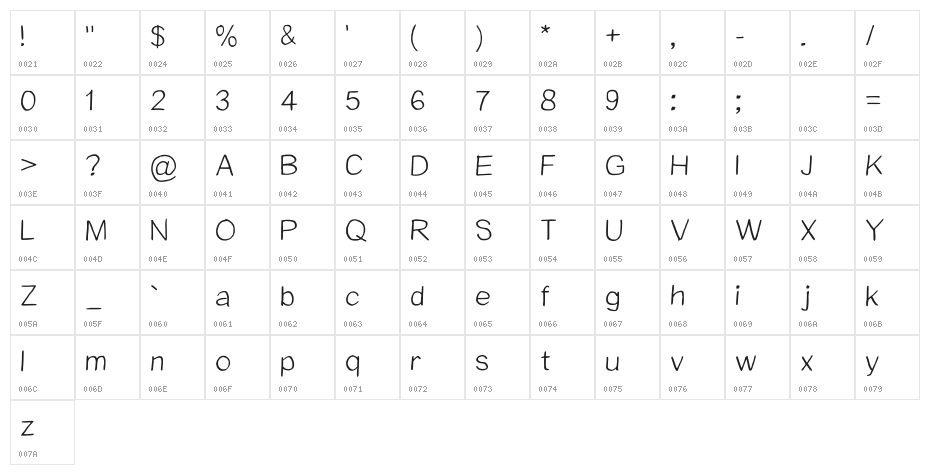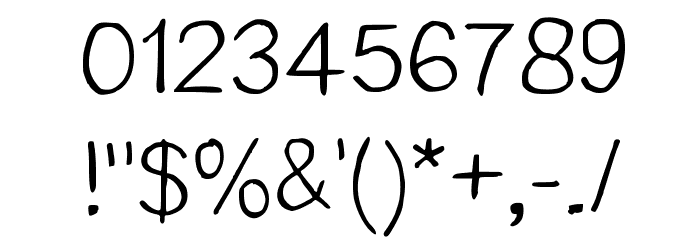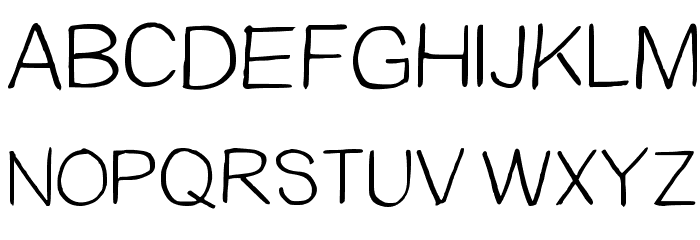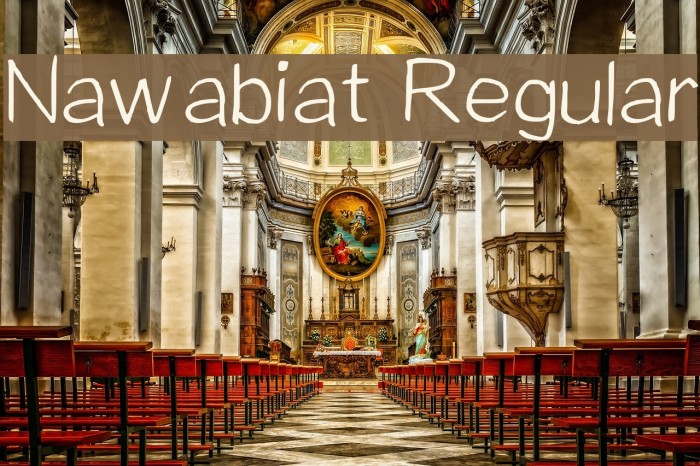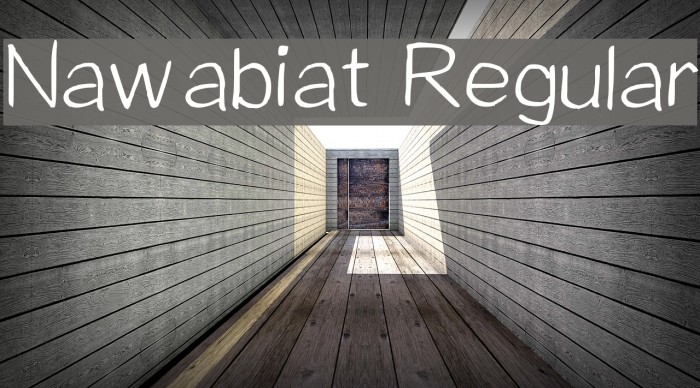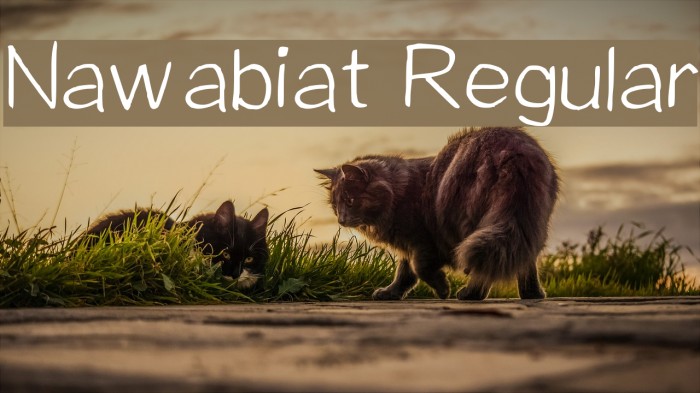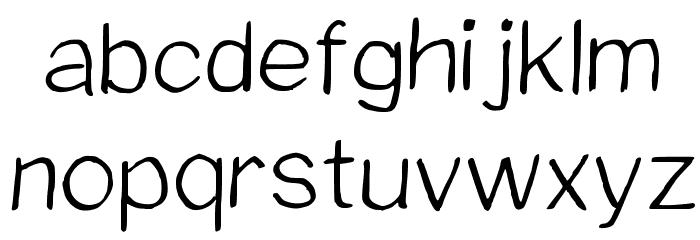
Nawabiat Regular Font
Nawabiat Regular Description
This font features a playful and informal handwritten style, characterized by its slightly irregular strokes and casual appearance. The letters have a natural flow, with rounded edges and a consistent stroke width that gives it a friendly and approachable feel. The uppercase and lowercase letters maintain a harmonious balance, while the numerals and special characters complement the overall design. This font is versatile, making it suitable for a variety of creative projects that require a personal touch.
| Use Case | Headlines, Logos, Informal text |
| Proposed Projects | Ideal for greeting cards, invitations, children's books, and personal branding projects. |